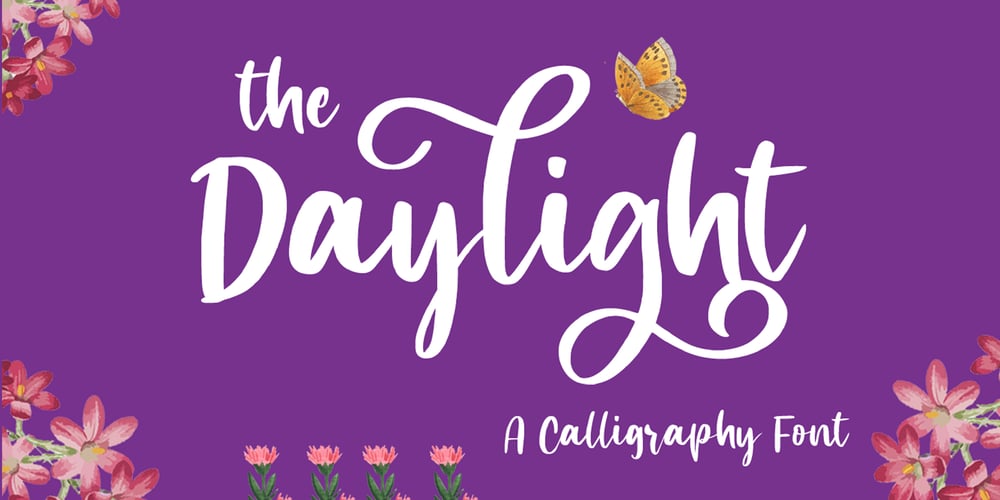
The Daylight Font Family was designed by Heri Imanudin and published by Krafted. The Daylight contains 1 styles and family package options. Get ready to transcend to a world of magic, laughter, and butterflies. Your branding will spark delight and engage everyone who sees it! Introducing The Daylight – A Calligraphy Font. A beautifully handcrafted calligraphy font that’ll make your guests sing and elevate your projects! Every swash, stroke, and curve was created to entice happiness and elegance. The ideal font for social media banners; posts, and ads, printed quotes, t-shirt designs, packaging, or even as a modern text overlay to any background image. The Daylight includes gorgeous swashes and ligatures that give the font even more flair! What you’ll get: Multilingual & Ligature Support Full sets of Punctuation and Numerals Compatible with: Adobe Suite Microsoft Office KeyNote Pages Software Requirements: The fonts that you’ll receive in the pack are widely supported by most software. In order to get the full functionality of the selection of standard ligatures (custom created letters) in the script font, any software that can read OpenType fonts will work. We hope you enjoy this font and that it makes your branding sparkle! Feel free to reach out to us if you’d like more information or if you have any concerns.